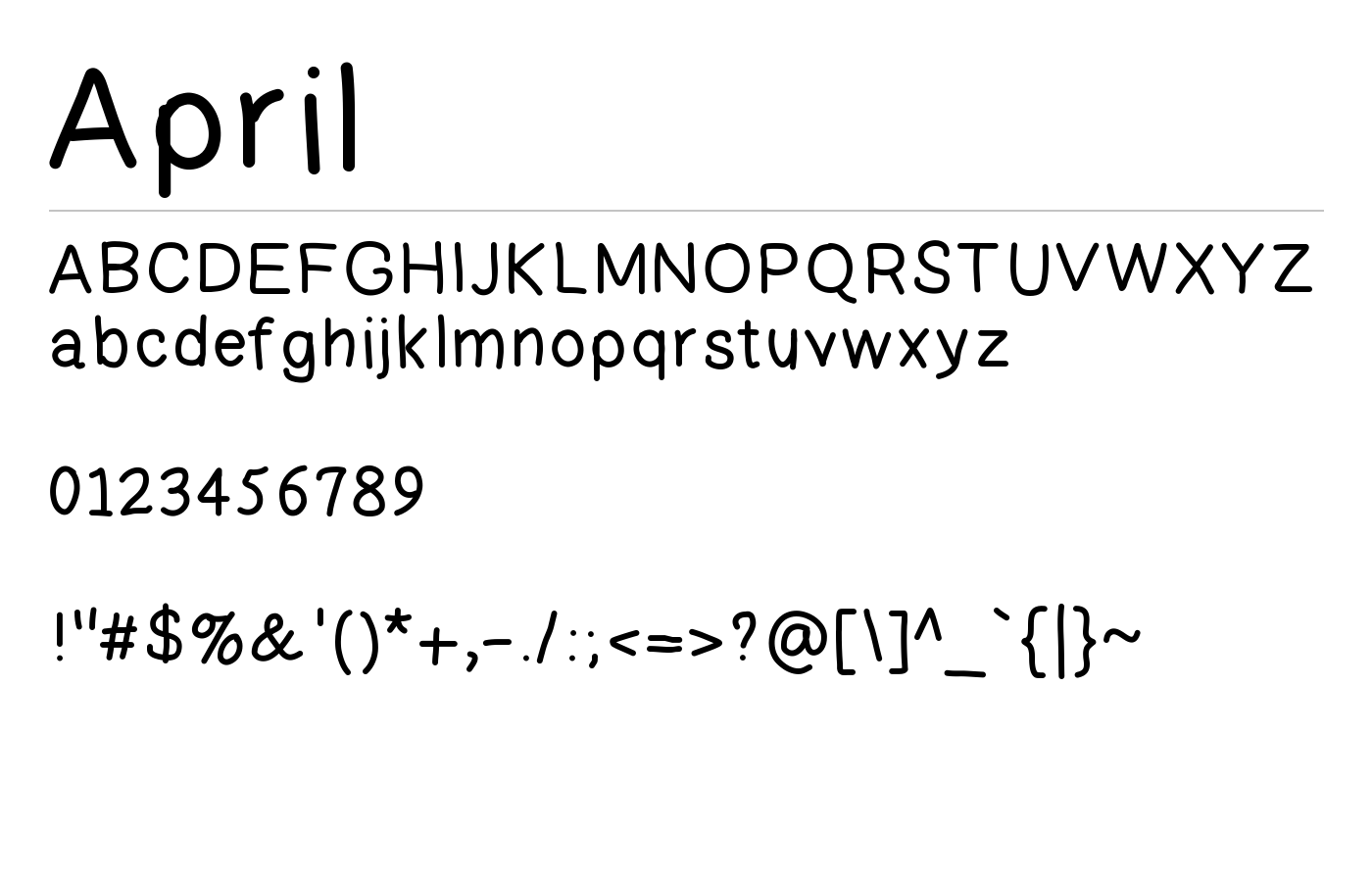
April Font is a playful and friendly sans serif typeface with a casual, handwritten feel. Its rounded, slightly irregular letterforms and moderate x-height create an approachable and informal look, making it ideal for creative projects, children's content, and lighthearted branding. This font works well for headlines, invitations, and any design seeking a warm, personal touch.
April Font
About April Font